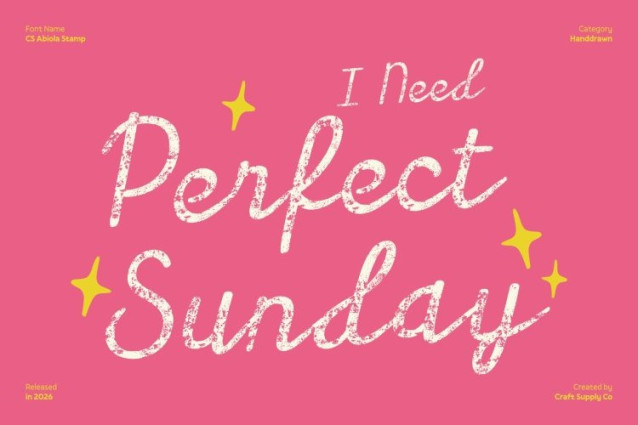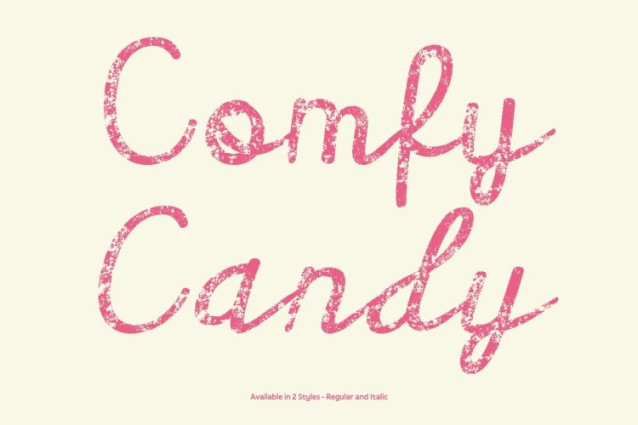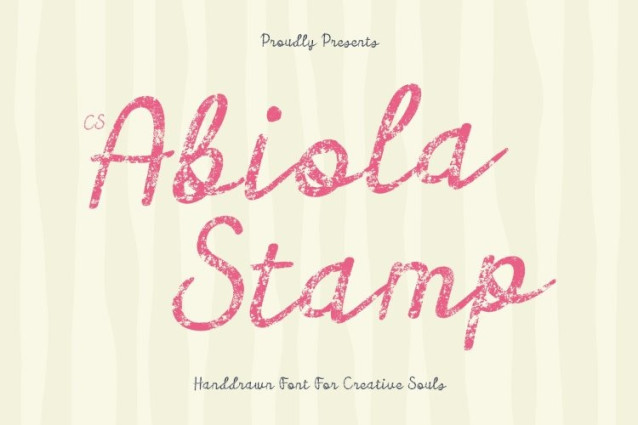
CS Abiola Stamp Font
CS Abiola Stamp Font This is a modern script typeface inspired by graceful cursive handwriting and refined pen strokes. Its smooth curves and flowing connections create a natural rhythm that feels personal and expressive. Enhanced with a subtle stamp effect, the letterforms gain a handcrafted quality that adds warmth and character while preserving elegant readability.
Soft Feminine Charm with Artistic Texture
The typeface radiates a sweet and feminine personality, blending gentle curves with lightly textured details. The stamped finish introduces organic imperfections that evoke a vintage, artistic feel, making each character feel authentic and emotionally rich. This balance of softness and texture gives the font a charming, intimate presence.
Modern Script with Vintage Sensibility
While rooted in contemporary script design, this font embraces a nostalgic touch through its textured appearance and slightly imperfect edges. This fusion creates a harmonious blend of modern elegance and vintage charm, allowing the font to feel stylish, expressive, and timeless across a wide range of creative uses.
Perfect for Romantic and Expressive Designs
Ideal for beauty packaging, wedding invitations, branding, social media content, quotes, and lifestyle visuals, this font enhances designs with romantic sophistication. Its graceful flow and stamped character make it a perfect choice for designers seeking a script font that conveys femininity, sincerity, and artistic personality.